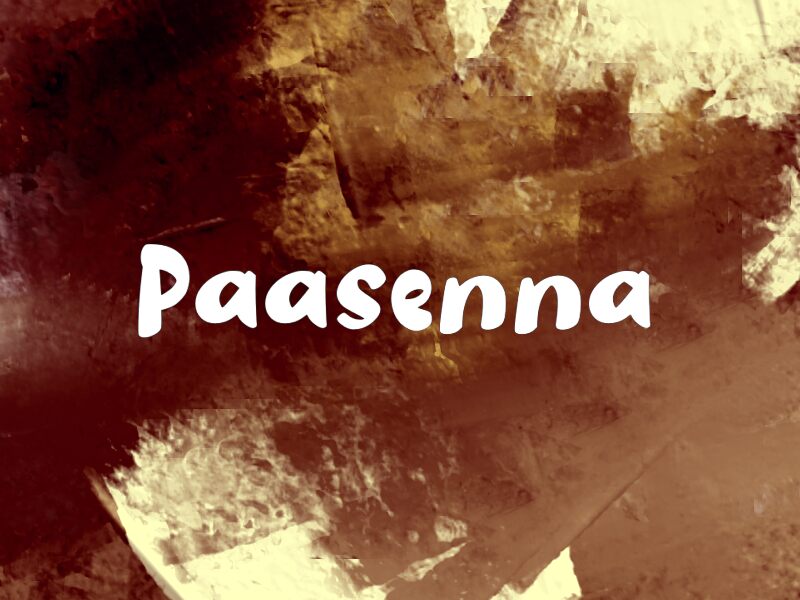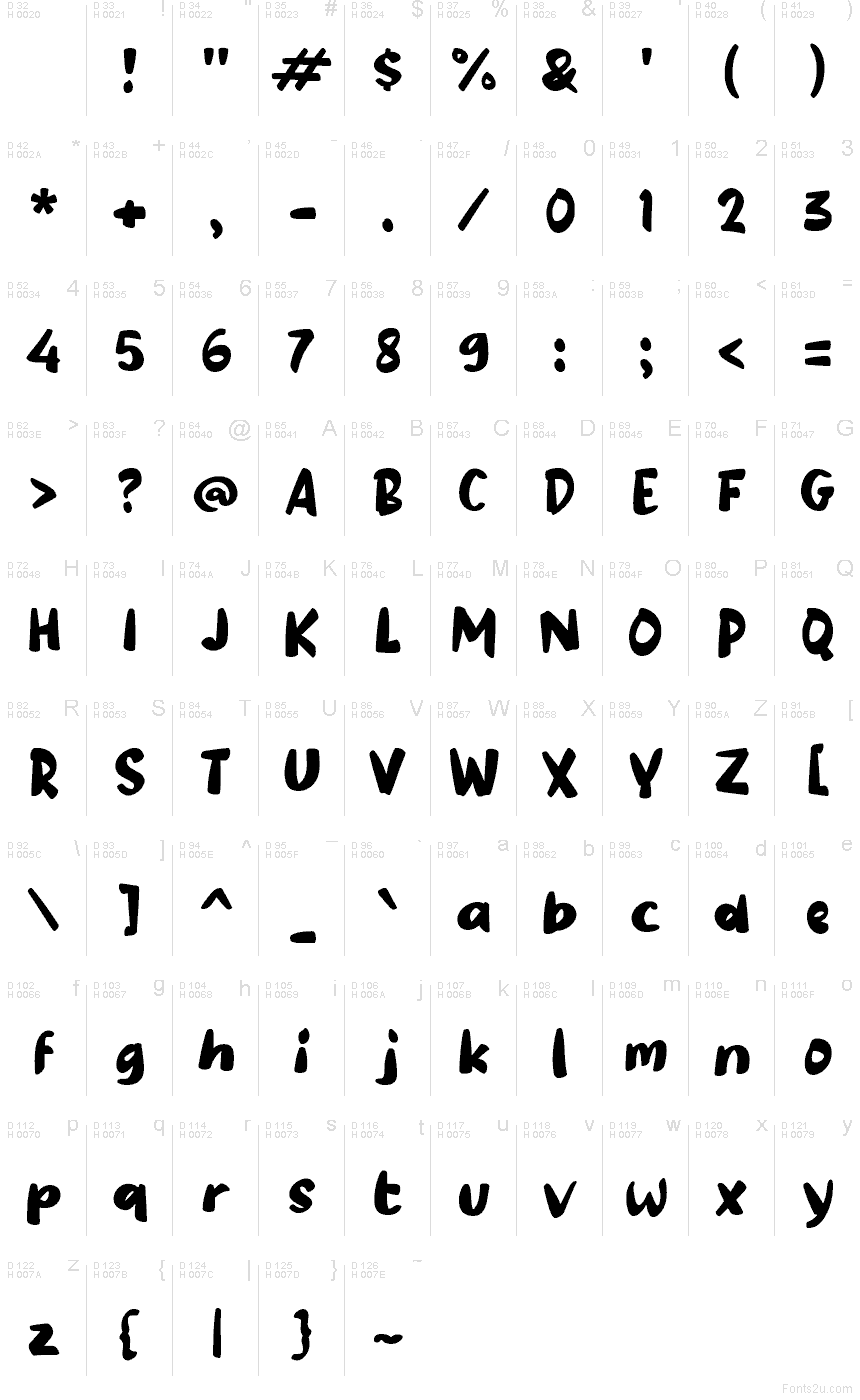
Paasenna
Paasenna font by wep is a free cartoon display typeface with juicy, inky curves and a bouncy handwritten rhythm. The chunky, rounded forms feel like they’ve been painted with a thick marker, giving every word a soft, friendly weight that’s easy to spot and fun to read. Its loose, slightly uneven flow adds an honest, hand-drawn charm that feels playful rather than messy.
Using Paasenna, you can bring instant character to kids’ book covers, birthday invitations, classroom posters, playful logos, snack packaging, and YouTube thumbnails. This free font shines at larger sizes where its bubbly silhouettes and generous spacing can breathe. For longer text or small labels, pair Paasenna with a simple sans serif to keep things readable while the headlines do the smiling.